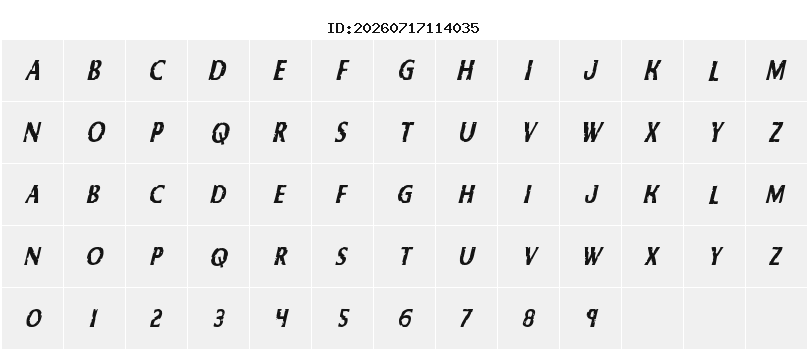
Body Swipers Condensed Italic Preview
• Font Name: Body Swipers Condensed Italic
• Font Style: Condensed Italic
• Full Font Name: Body Swipers Condensed Italic
• PostScript Name: BodySwipersCondensedItalic
About Body Swipers Condensed Italic.ttf
Body Swipers Condensed Italic.ttf is a modern, elegant sans-serif font designed for ultimate readability and visual harmony. Perfect for branding, headlines, web design, and print materials.